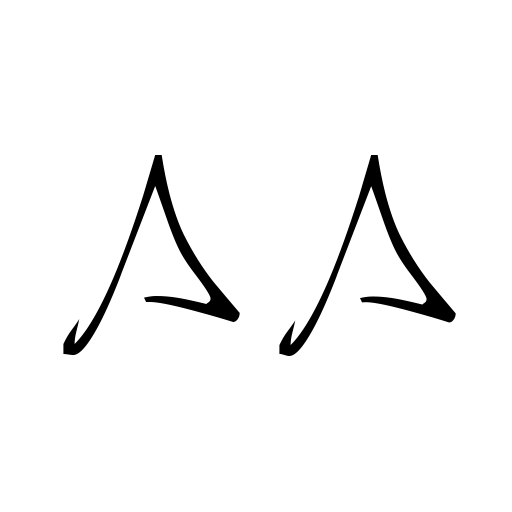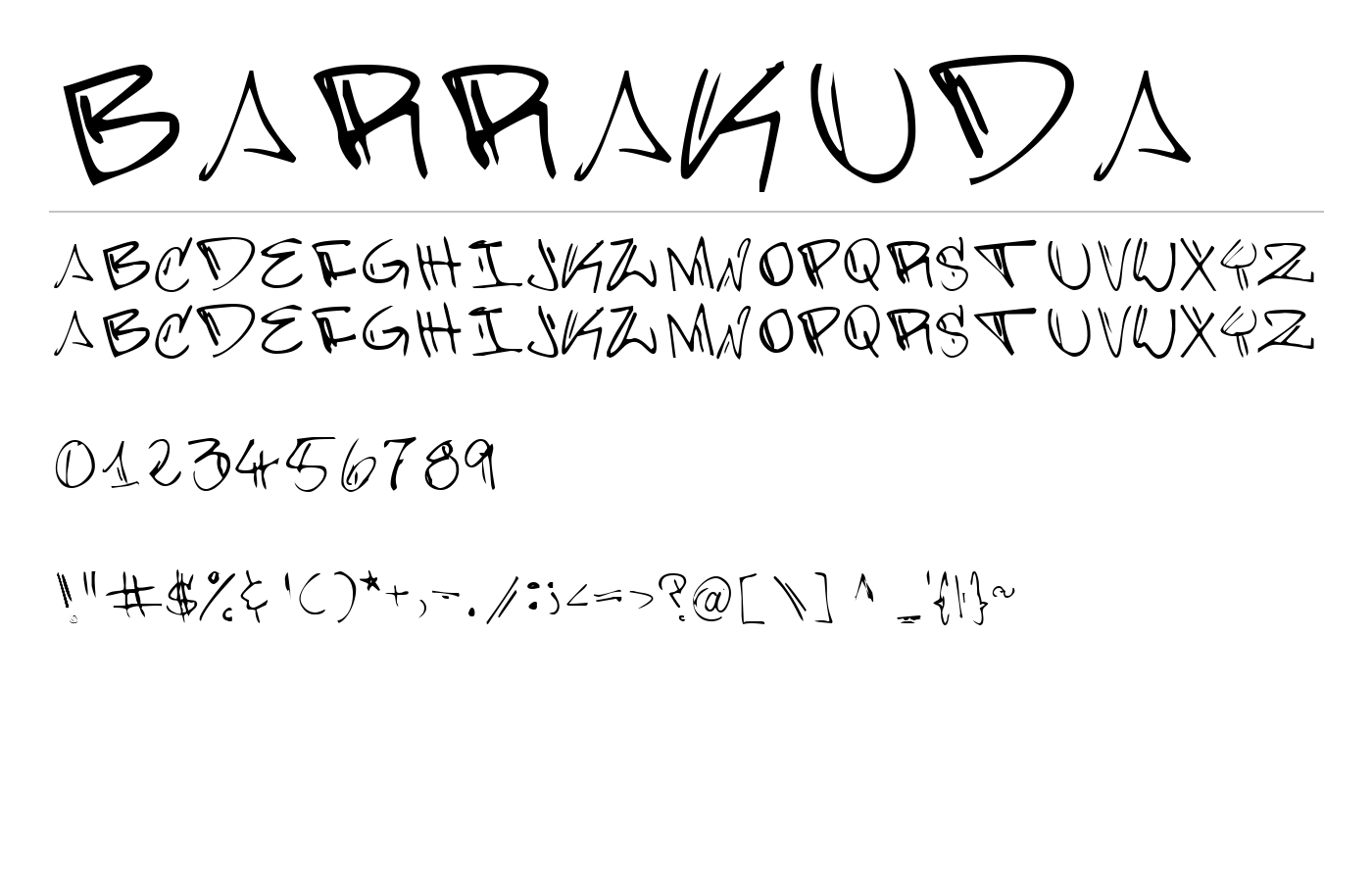
Barrakuda is a quirky, hand-drawn sans serif font with a playful and energetic personality. Its irregular letterforms and thin, varied strokes give it a casual, graffiti-like feel, making it ideal for creative projects seeking a unique, informal style. This font works well in logos, posters, and artistic branding where a fun and distinctive look is desired.
Barrakuda Font